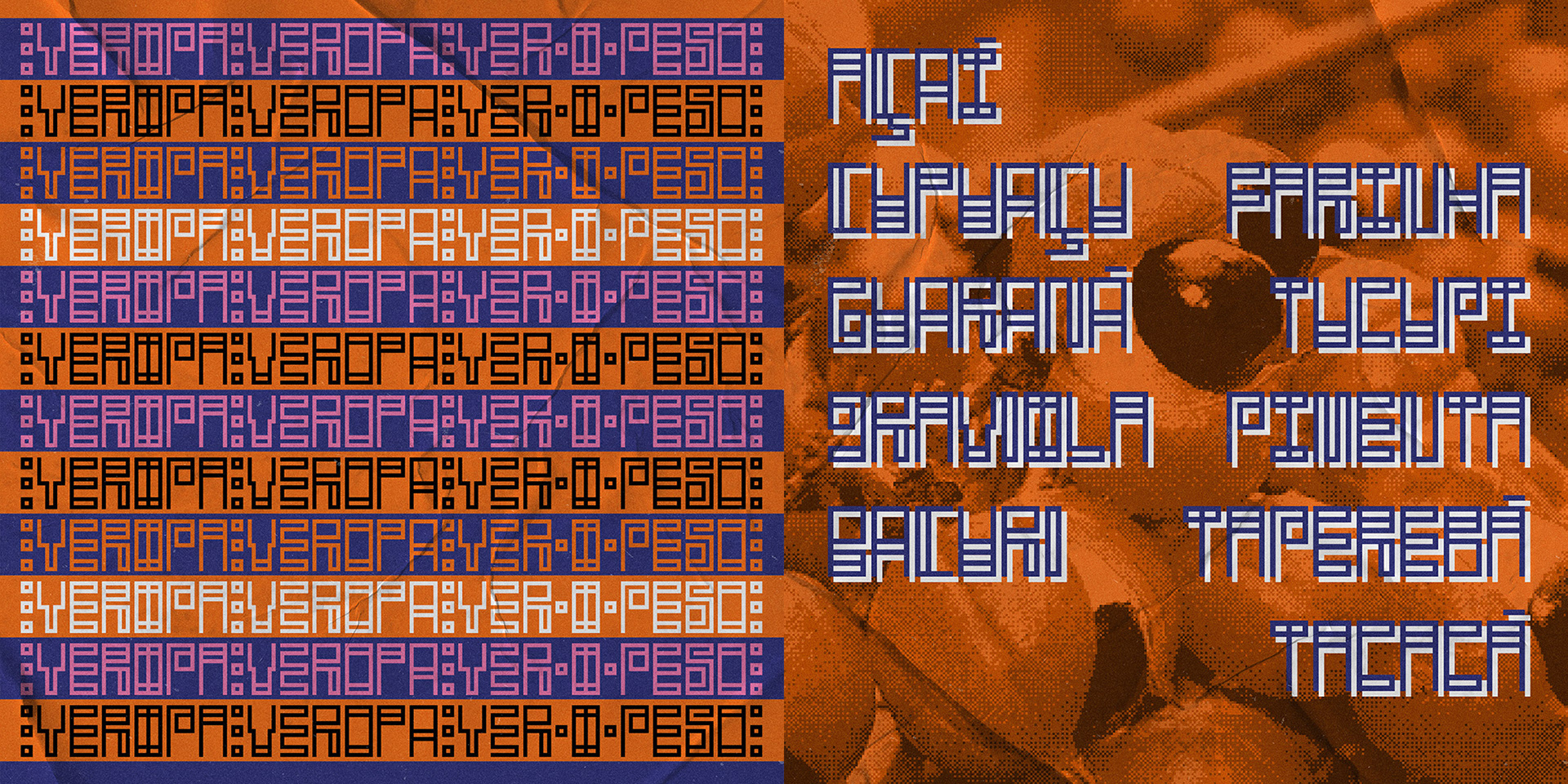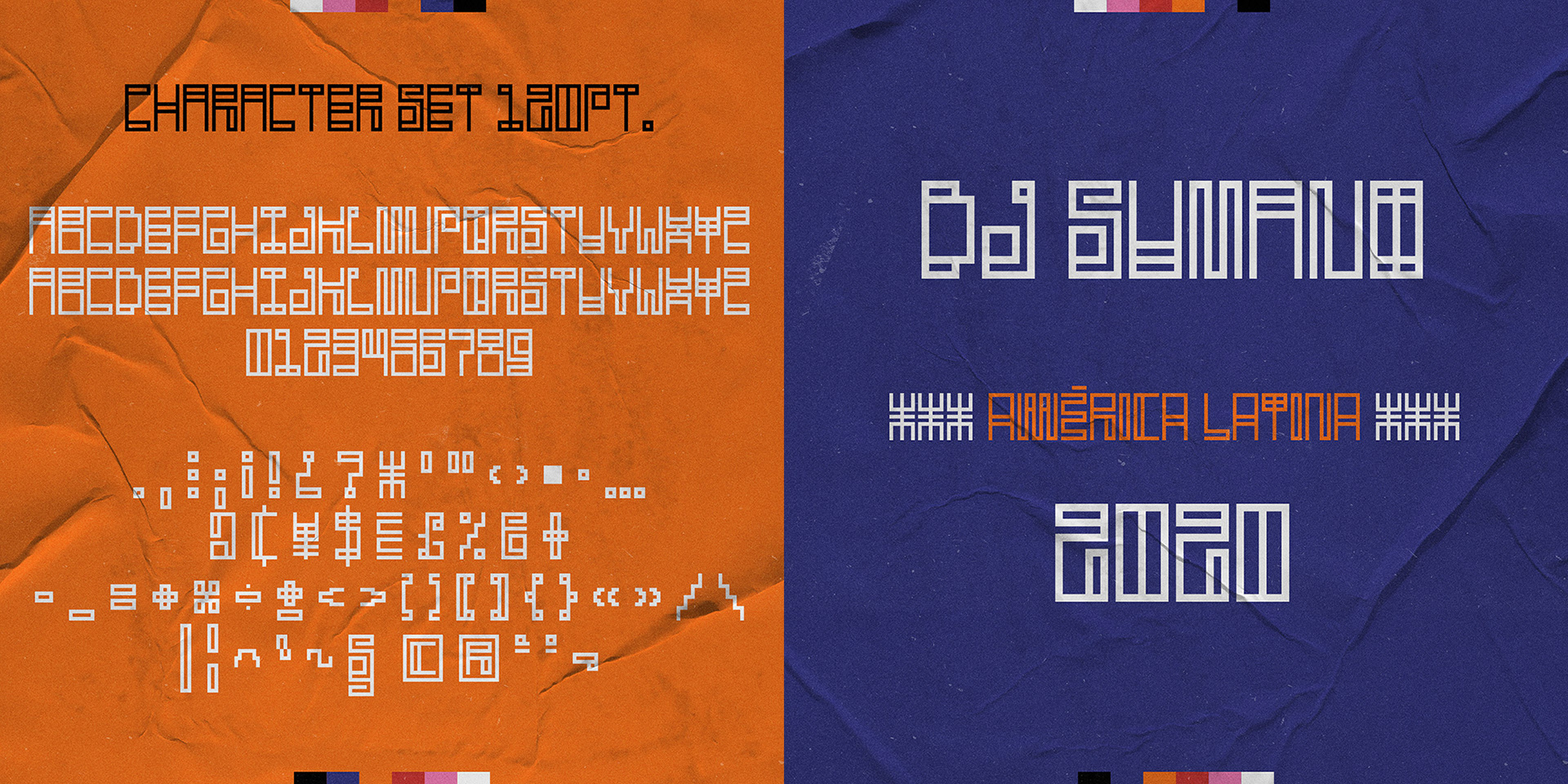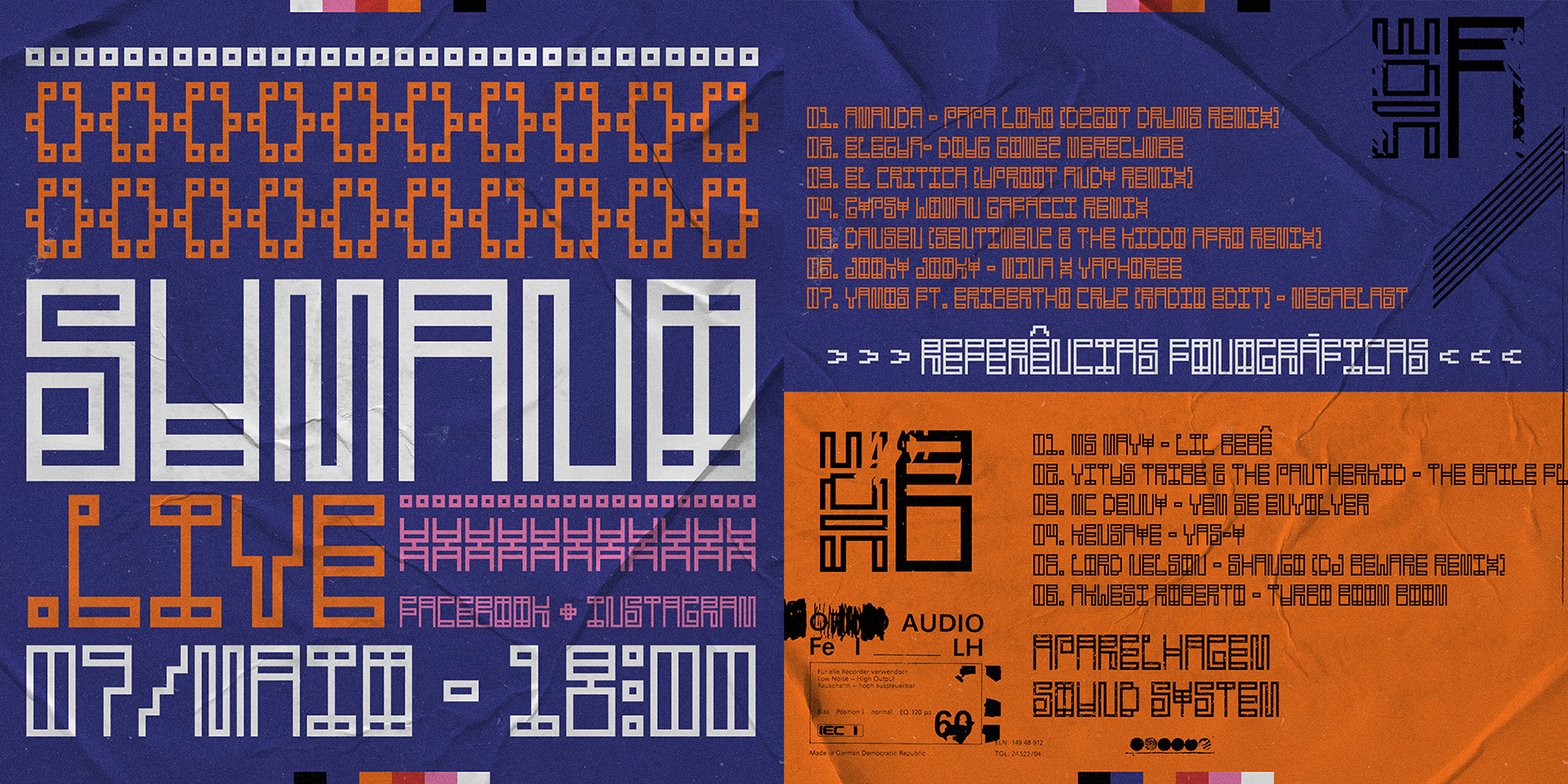
The Sumano typeface was initially an adaptation of the logo of my longtime friend DJ Sumano, which ended up taking on an identity aspect of his musical project.
Embracing the influence of Northern Brazil with urban electronics, as well as in his musical and audiovisual experiences, the typeface is a mixture of the artist's cultural references and an invitation to graphic experimentation.